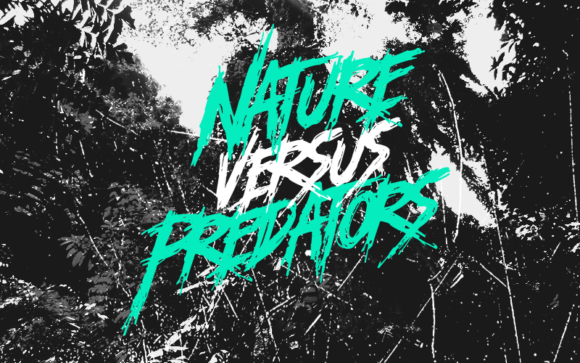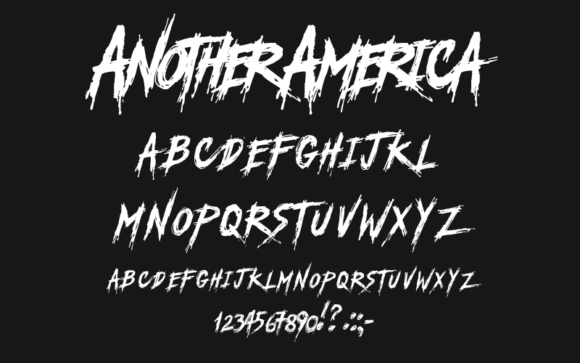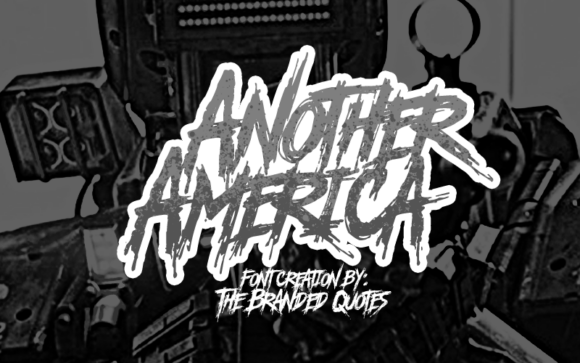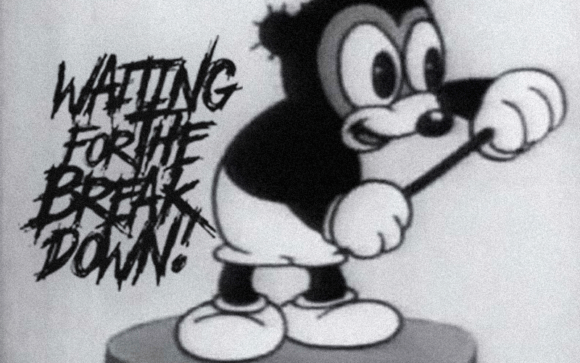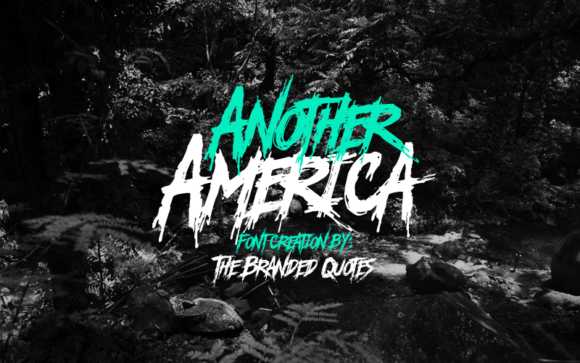
Introducing Another America Font: A Revolutionary Typeface Inspired by Deathcore Music and Unorthodox Design
In the world of typography, fonts are often seen as a means to an end – a way to convey a message, express a brand’s identity, or add visual interest to a design. However, every now and then, a font comes along that challenges the status quo, pushing the boundaries of what we consider “traditional” typography. Enter Another America Font, a revolutionary typeface that draws inspiration from the unlikeliest of sources: Deathcore music and the unconventional side of photography and graphic design.
The Birth of Another America Font
Another America Font is the brainchild of a team of designers and typographers who sought to create a font that embodies the spirit of rebellion and nonconformity. Influenced by the aggressive, in-your-face aesthetic of Deathcore music, they set out to craft a typeface that would be just as bold, just as unapologetic, and just as attention-grabbing.
But what exactly is Deathcore music, and how did it inspire the creation of Another America Font? For the uninitiated, Deathcore is a subgenre of metal music characterized by its fast-paced, aggressive sound and often, graphic, imagery. It’s a style that’s not for the faint of heart, and it’s precisely this unapologetic attitude that the designers behind Another America Font sought to capture.
Unorthodox Design Inspiration
So, how did the designers of Another America Font translate the raw energy of Deathcore music into a typographic masterpiece? The answer lies in their unorthodox approach to design. Drawing inspiration from the world of photography and graphic design, they experimented with unconventional techniques, such as distorted letterforms, asymmetrical shapes, and bold, geometric patterns.
The result is a font that’s equal parts beautiful and brutal, with a unique aesthetic that’s both captivating and thought-provoking. Another America Font is not just a typeface – it’s an experience, a statement, and a reflection of the designers’ willingness to challenge the norms of typography.
Key Features of Another America Font
So, what sets Another America Font apart from other typefaces? Here are a few key features that make it truly unique:
- Distorted Letterforms: Another America Font features distorted letterforms that give it a rebellious, unconventional feel.
- Asymmetrical Shapes: The font’s asymmetrical shapes add to its sense of tension and unease, making it perfect for designs that require a bold, attention-grabbing approach.
- Geometric Patterns: The font’s geometric patterns add a level of complexity and visual interest, making it ideal for designs that require a high level of creativity.
Who is Another America Font for?
Another America Font is not for the faint of heart. It’s a typeface that’s designed for designers, crafters, and artists who are looking to push the boundaries of their work. Whether you’re a graphic designer looking to add some edge to your designs, a crafty DIY enthusiast looking for a unique font for your handmade projects, or simply someone who appreciates bold, unapologetic typography, Another America Font is the perfect choice.
| Font Name | Another America Font |
| Author | thebrandedquotes |
In conclusion, Another America Font is a revolutionary typeface that’s not for the faint of heart. Inspired by Deathcore music and the unorthodox side of photography and graphic design, it’s a font that’s bold, unapologetic, and attention-grabbing. Whether you’re a designer, crafter, or simply someone who appreciates innovative typography, Another America Font is definitely worth checking out.